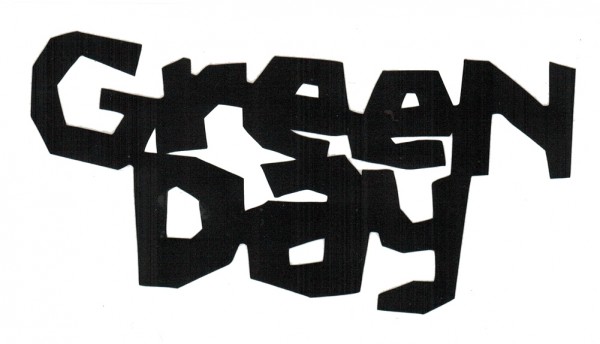
Green Day Font
BandGreen Day is an American punk rock band formed in 1987. The graffiti like logo above appeared on their second album Kerplunk.
A similar font for it is Greendays, download it for free here.
Green Day logo in a typewriter font, as seen on their fourth album Insomniac. The font used is probably FF Trixie.
Green Day logo in a sans serif block text with grunge effects added, as seen on their seventh album American Idiot, probably based on Champion Gothic.
Green Day logo in square and dripping text, as seen on 21st Century Breakdown, you can recreate it with a free font named Breakdown, download it for free here.
The Green Day logo as seen from the 2012 ¡Uno!, ¡Dos!, ¡Tré! trilogy. As you may have noticed, the font for this logo is the same as the one used in American Idiot and the base font is probably Champion Gothic.